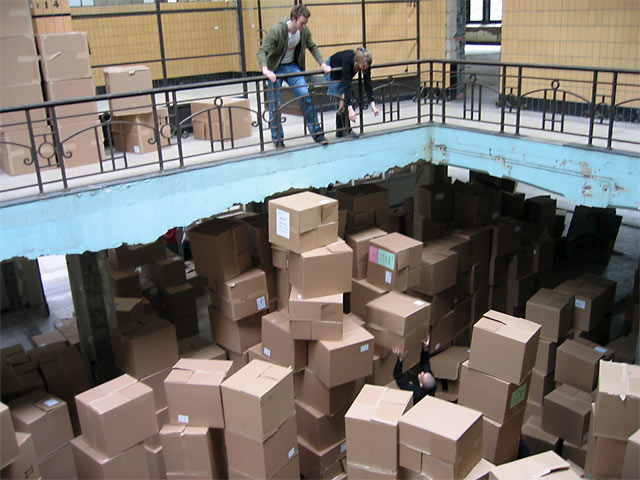
![]() Moveable type final result Walking thought the final type-arena someone discover a story like climb this mountain, find the right place for PiPi, you can use the stairs too, but take care not to fall down, and say hi when you enjoy the view from the berg 2; but there is a good chance that your story would have been a totally different one. Making type like this is not very easy. You have to think in forces. Top to bottom. You have to think in space. Front & back, left & right. You have to think big. Be small yourself. You have to keep the overview. Don't get lost in space. ![]() ![]()